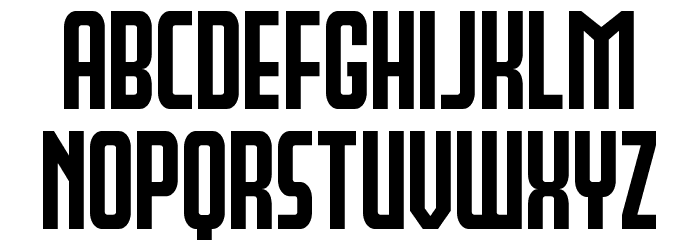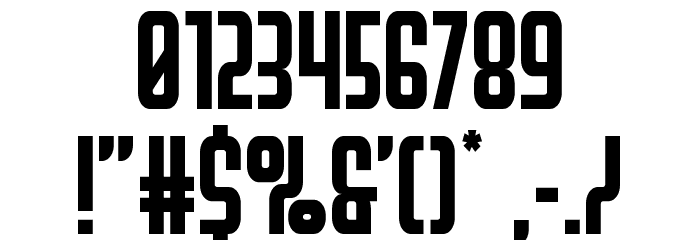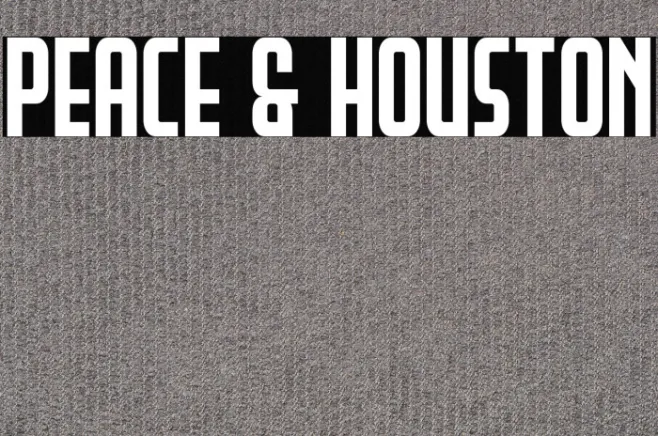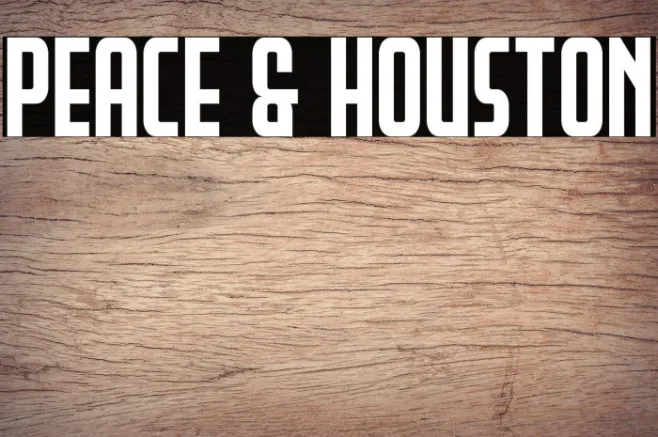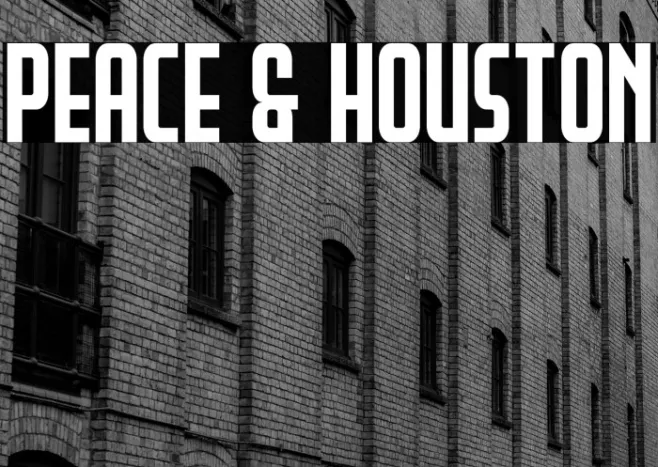
Peace & Houston Font
This font features a bold, geometric design with a strong presence. The characters are constructed with thick, uniform strokes that create a sense of solidity and impact. The uppercase letters are particularly striking, with a blocky appearance that commands attention. The lowercase letters maintain the same boldness, offering a cohesive look across different text cases. Numbers and special characters are designed with the same geometric precision, ensuring consistency throughout. This font is ideal for projects that require a modern and assertive typeface.
A bold, geometric font with a strong, modern presence.
- Proposed Projects: Ideal for branding, posters, headlines, and any design requiring a bold statement.